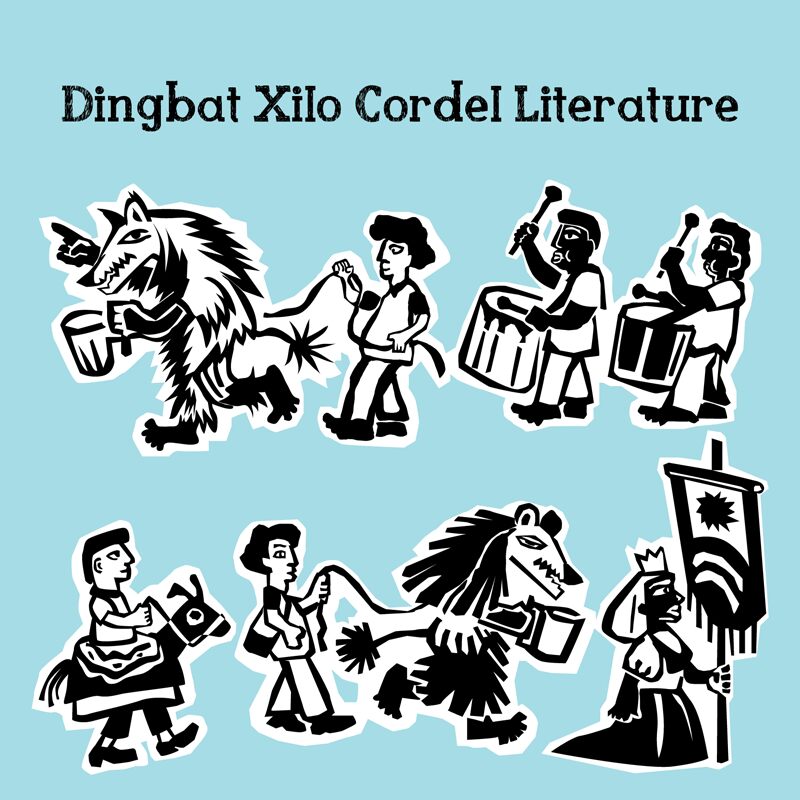
Xilo Cordel Literature Regular
Xilo Cordel Literature font is a beautifully crafted free display font inspired by and connected to the Latin American cordel literature. Designed by Galdino Otten Fonts, this handwriting style font uses condensed letters with thick-stroke outlines and dotted inline decorations. Originally created to be used in fluorescent lamp designs, this typeface stands out in tiny letter sizes and vivid backgrounds.
Possible uses for this font include food products’ labels, decorative posters, advertisement banners/posters (especially luminous), neon signs, flyers, typography blogs/websites posts, book covers/pages/illustrations (particularly cordel-related), online magazines articles headings among many others!